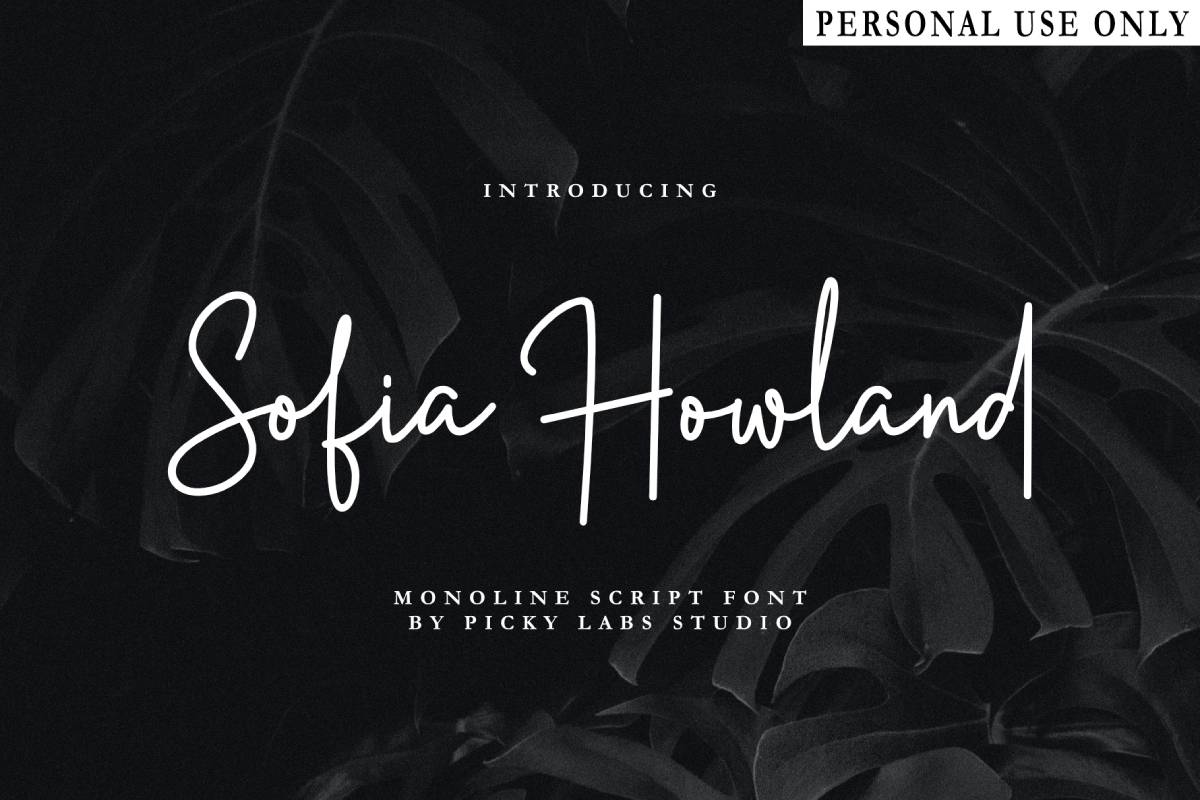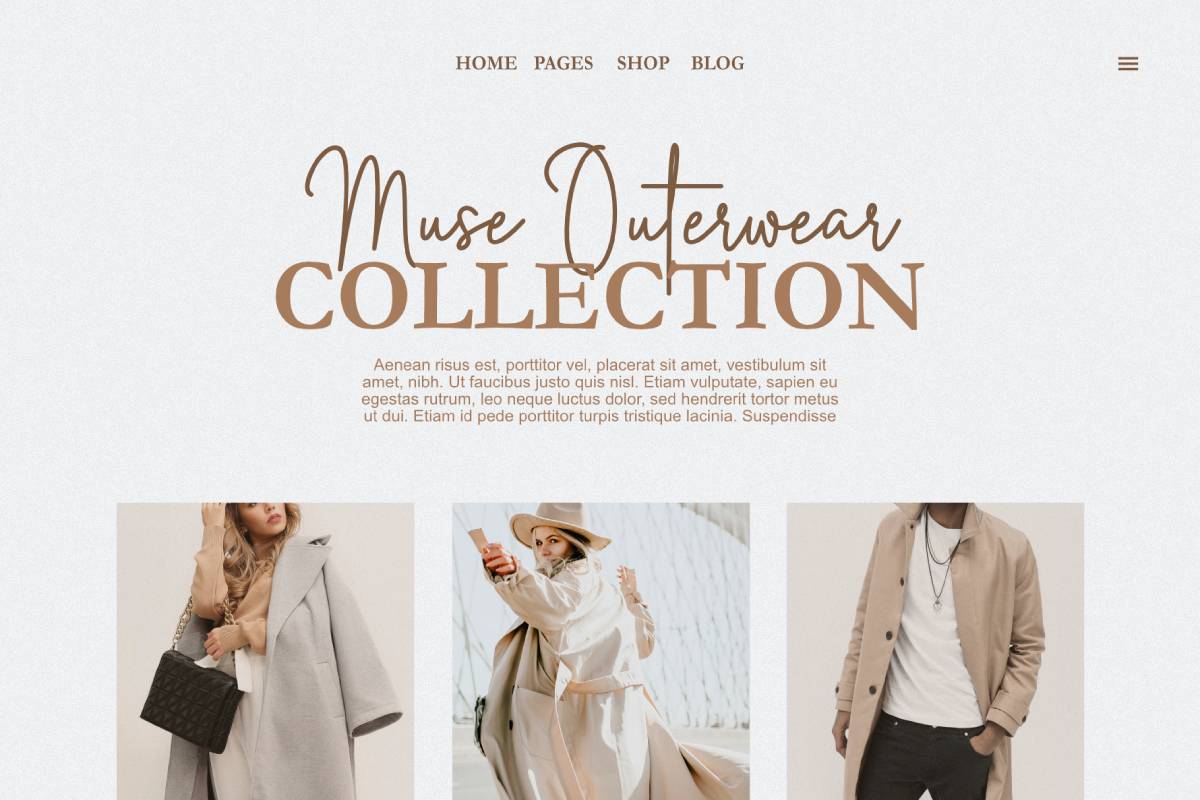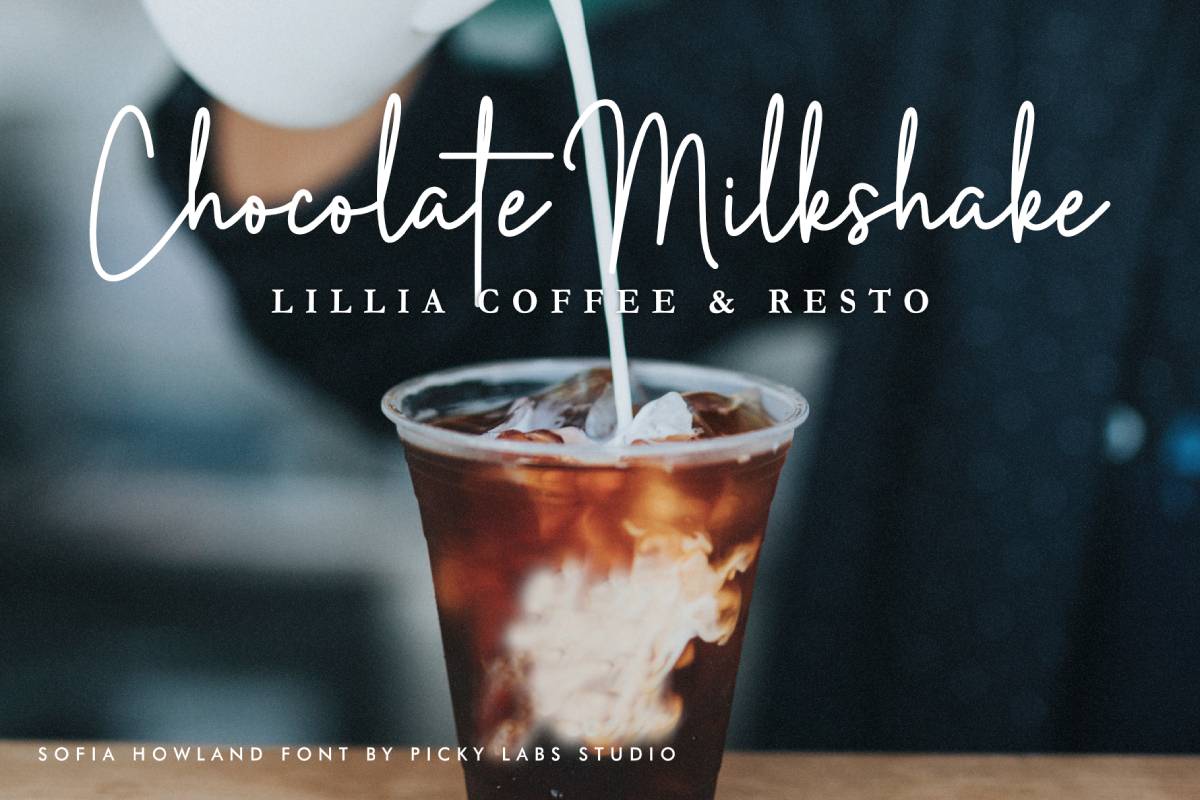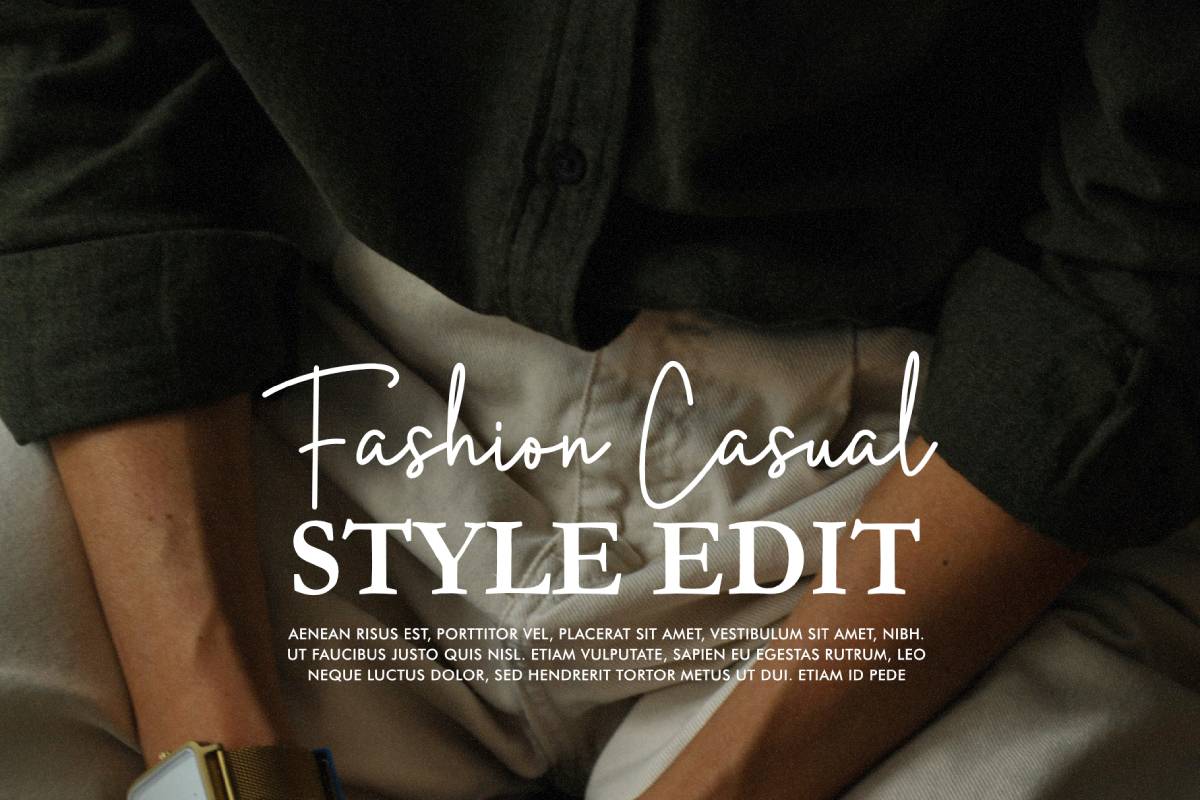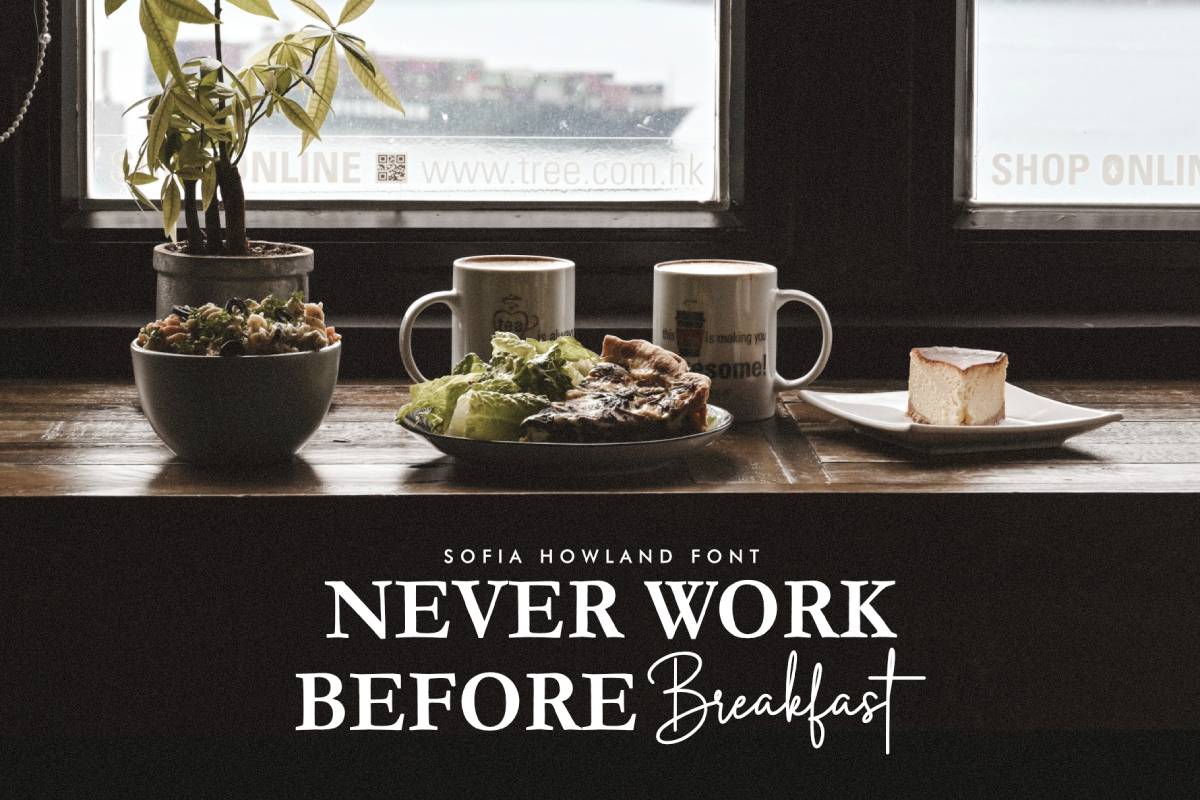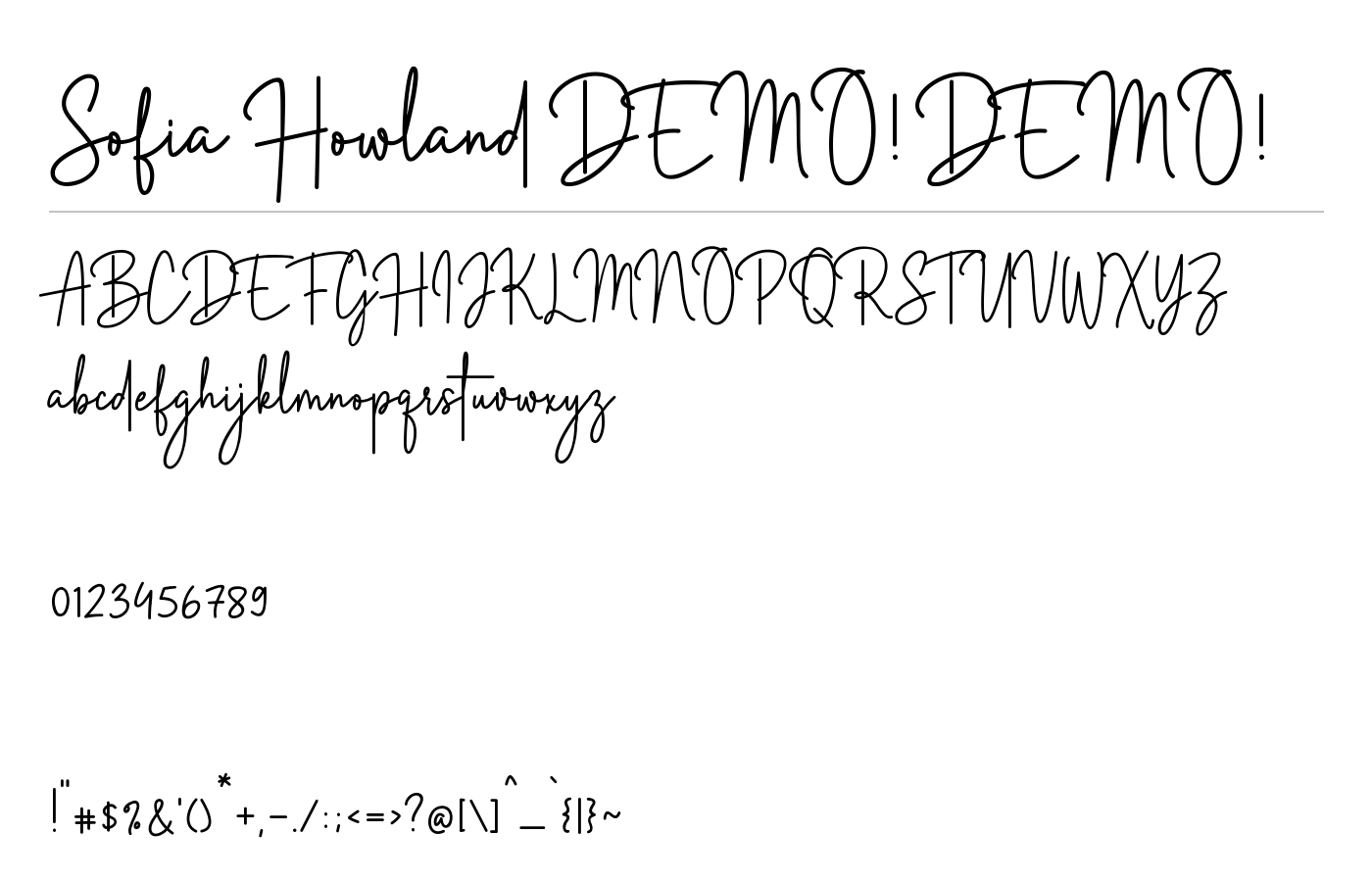
Sofia Howland is a delicate, handwritten script font characterized by its tall, narrow letterforms and smooth, flowing strokes that convey a personal, elegant touch. Its light weight and airy spacing make it ideal for creative and informal designs, lending a charming, approachable personality perfect for invitations, branding, and lifestyle projects seeking a stylish yet casual feel.
Sofia Howland Font
About Sofia Howland Font
| Font family | Sofia Howland Font |
| Designer | Picky Labs Studio |